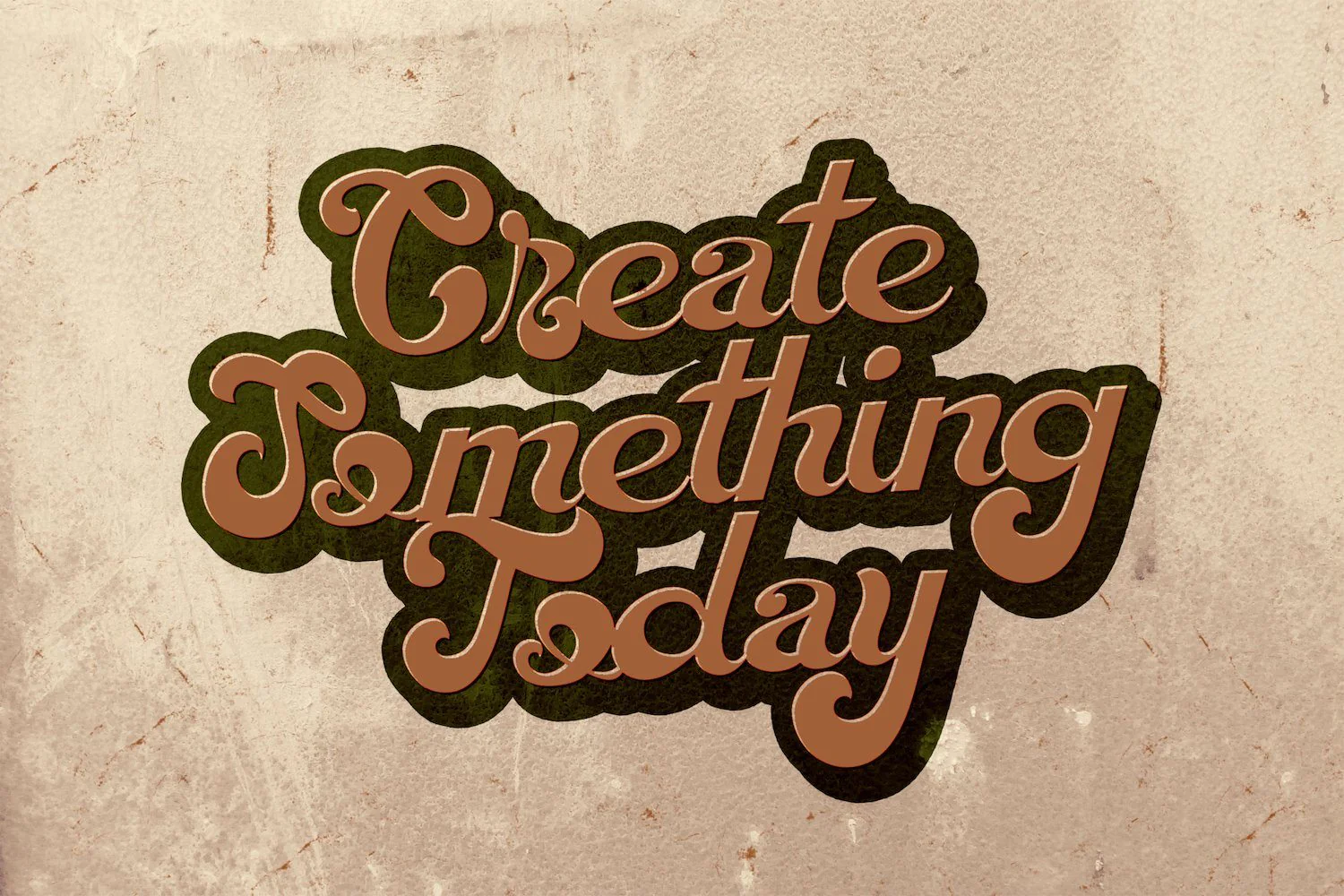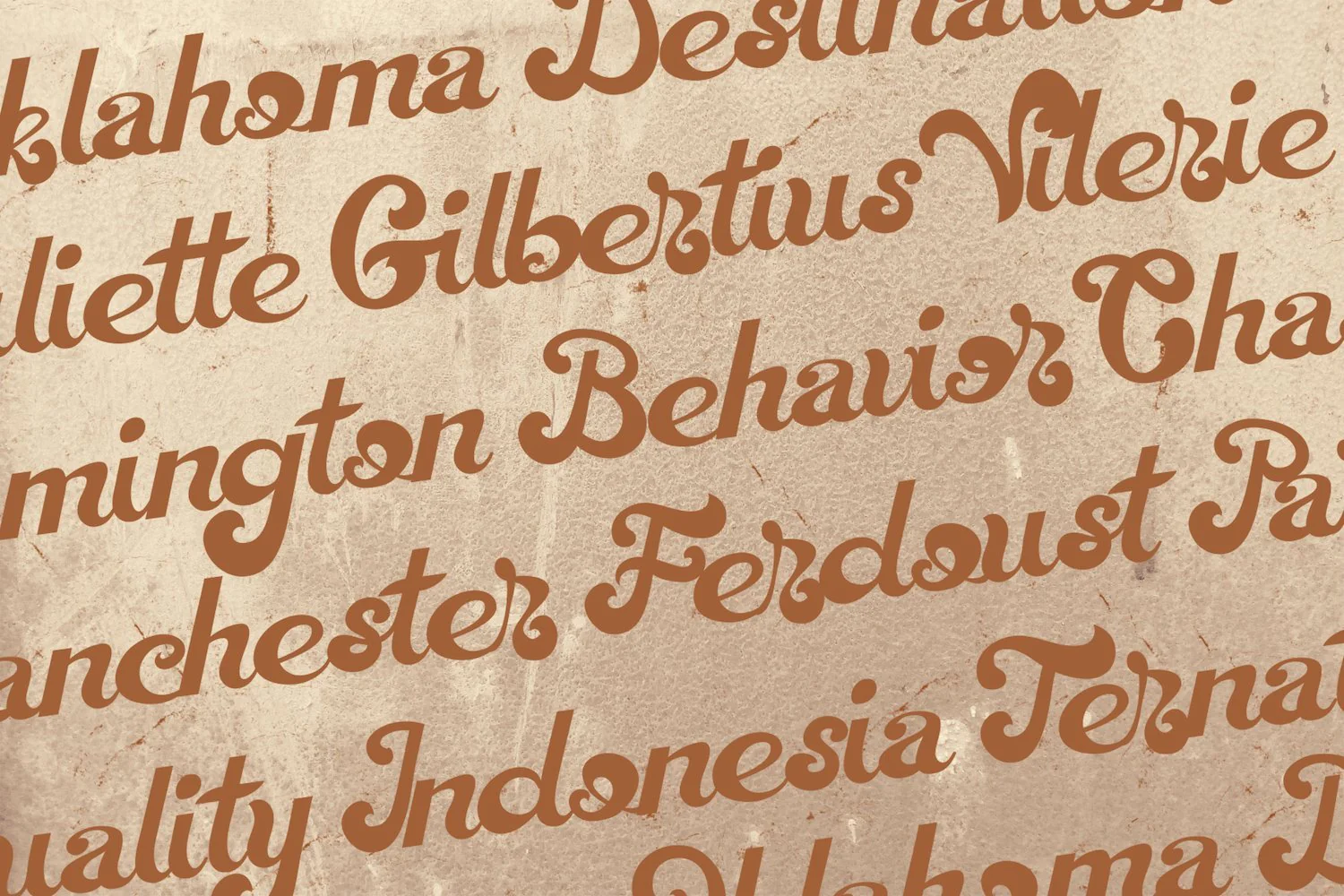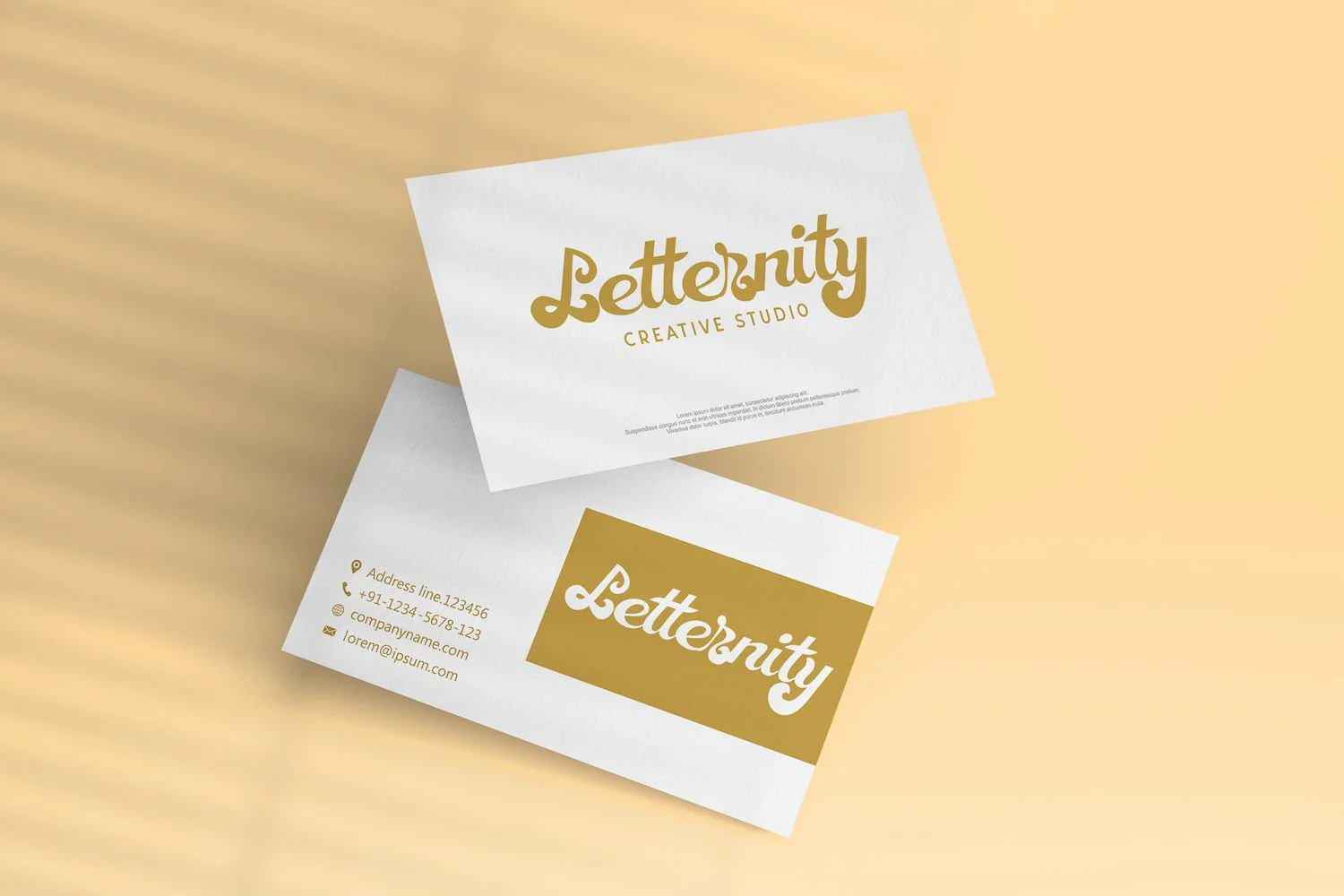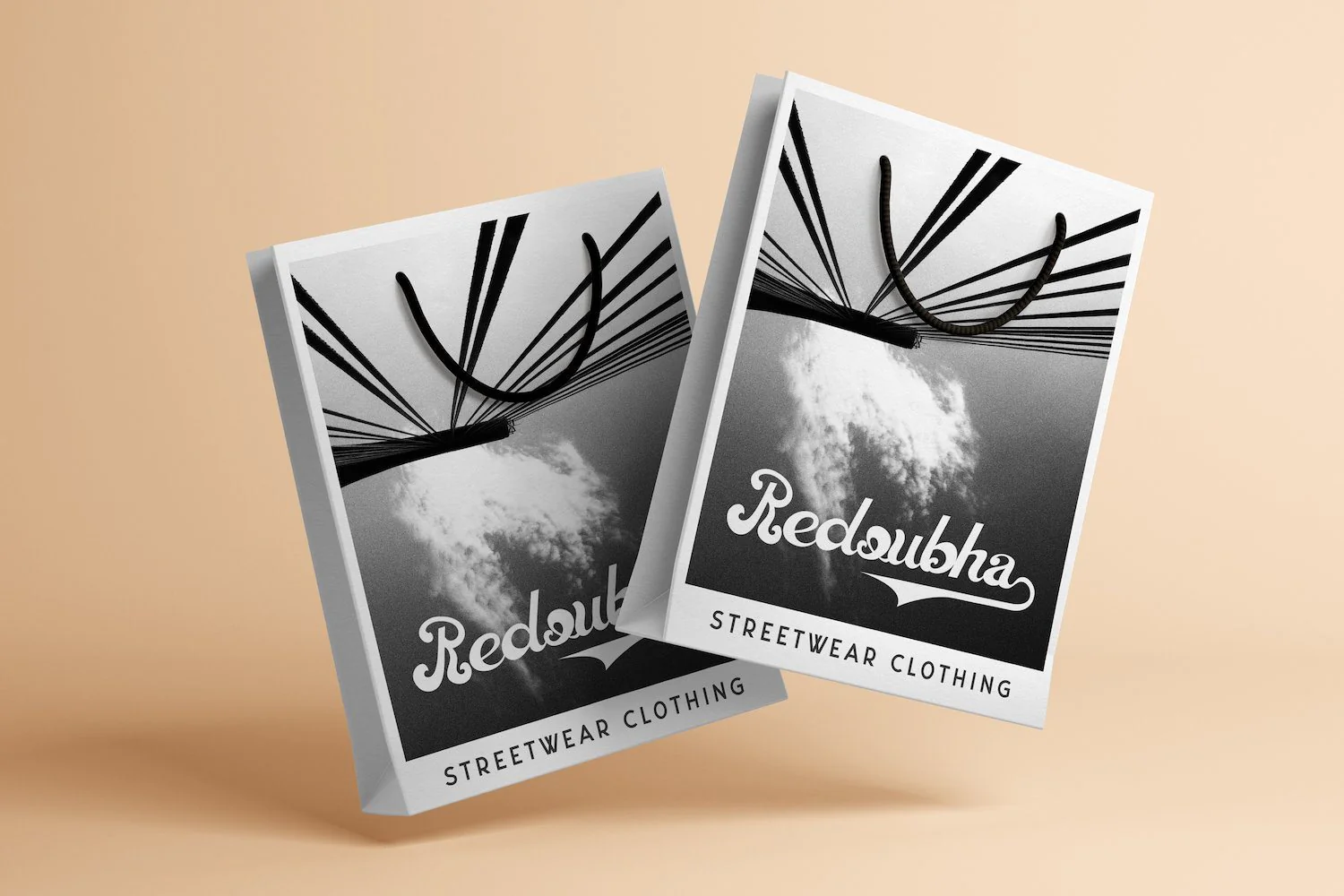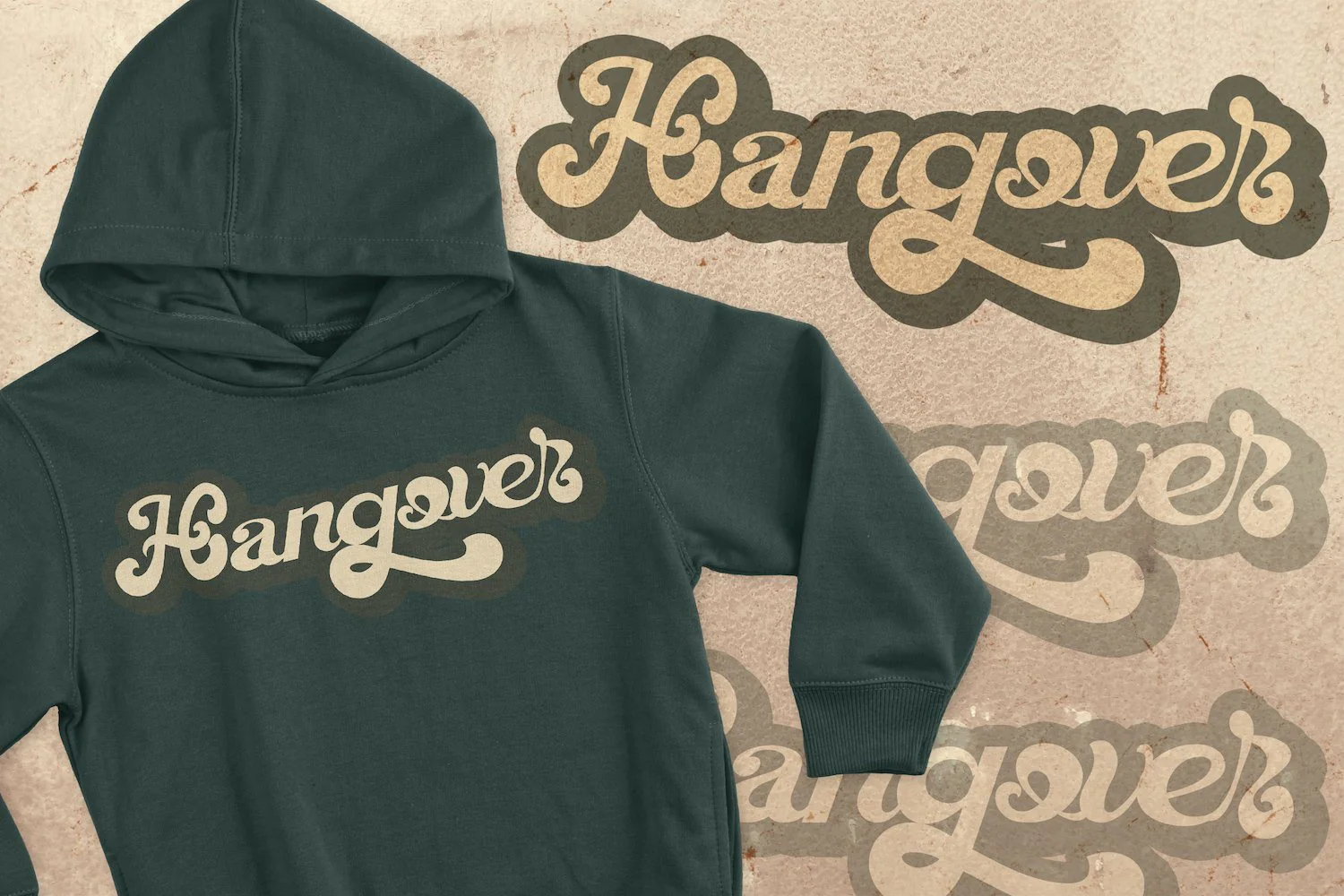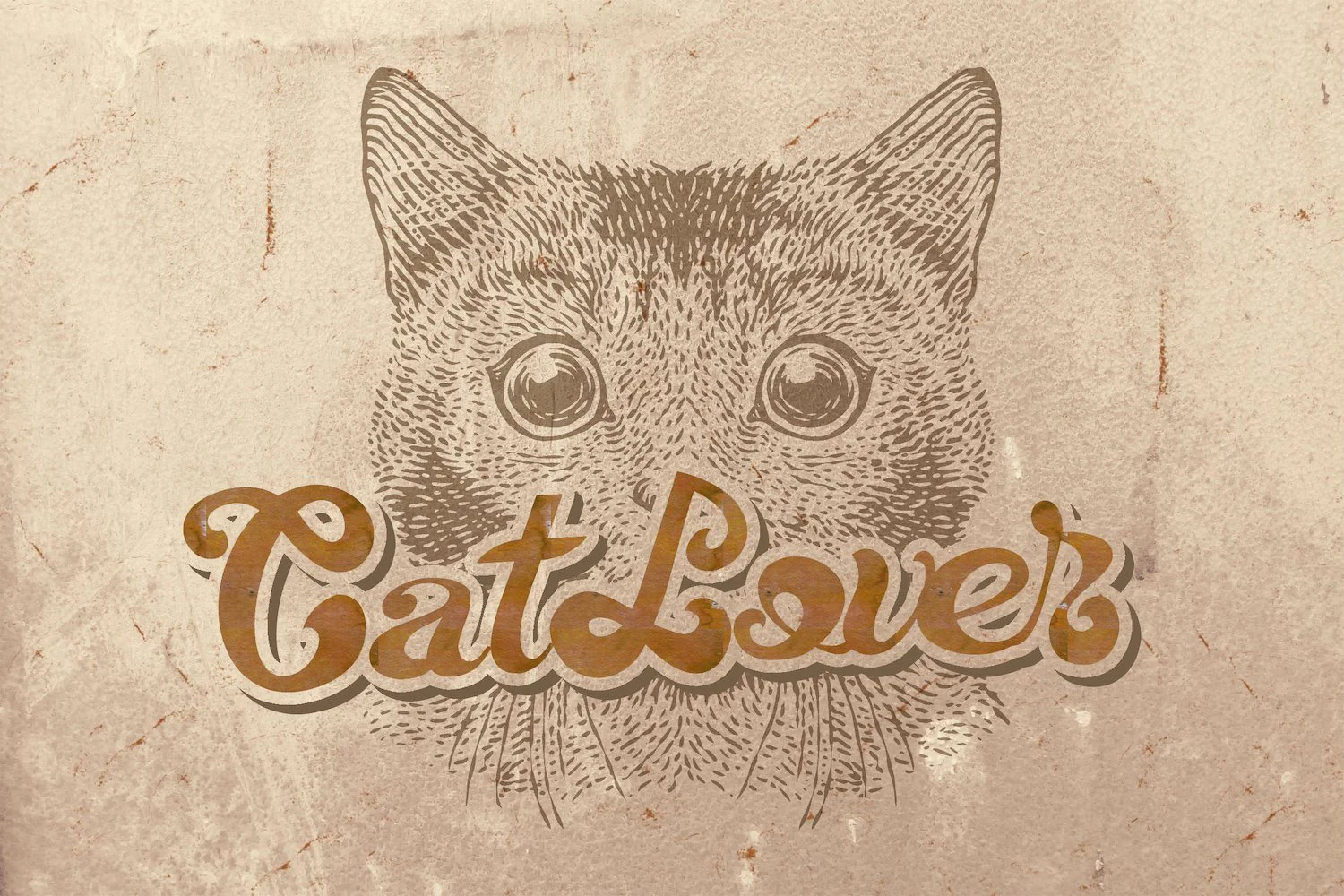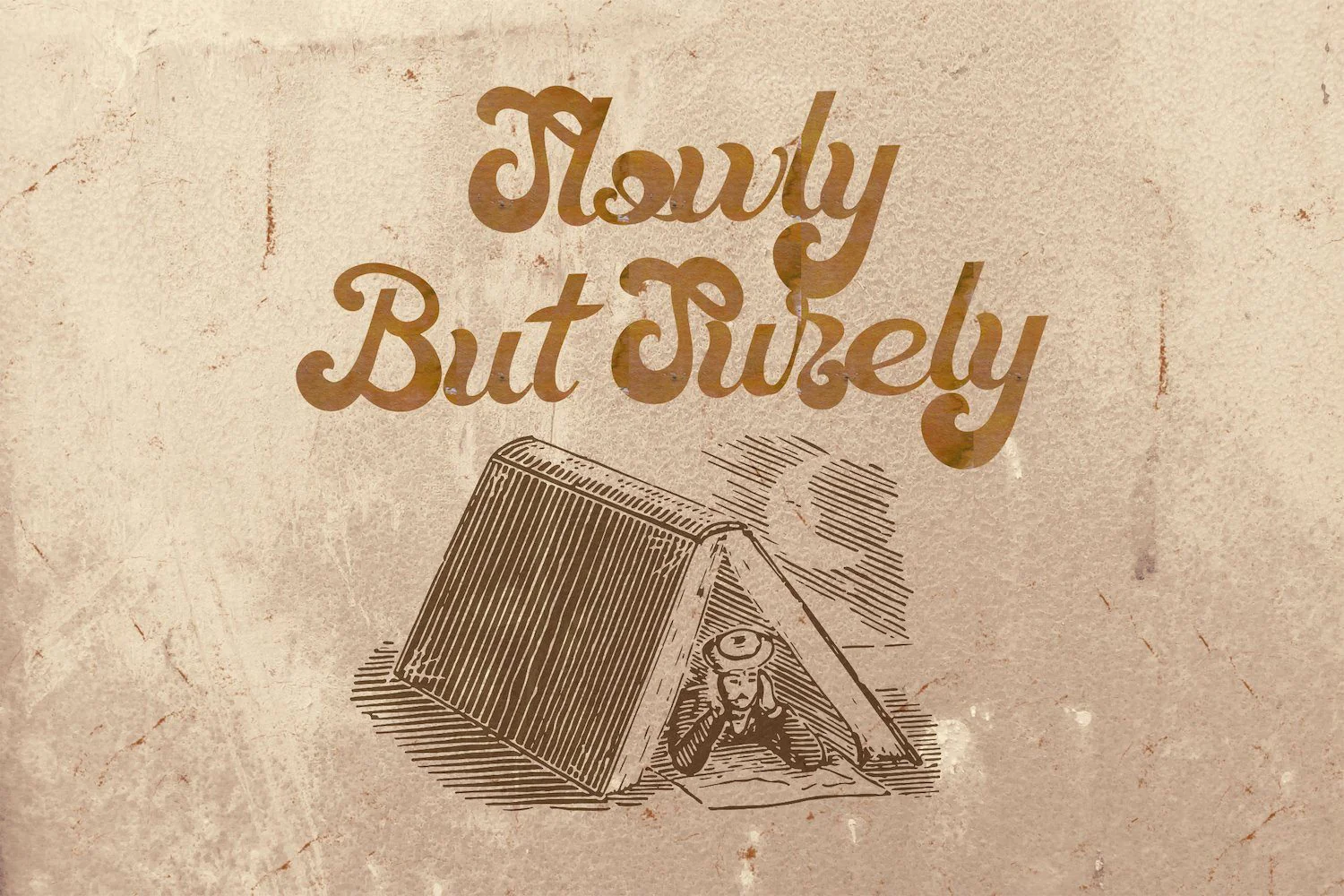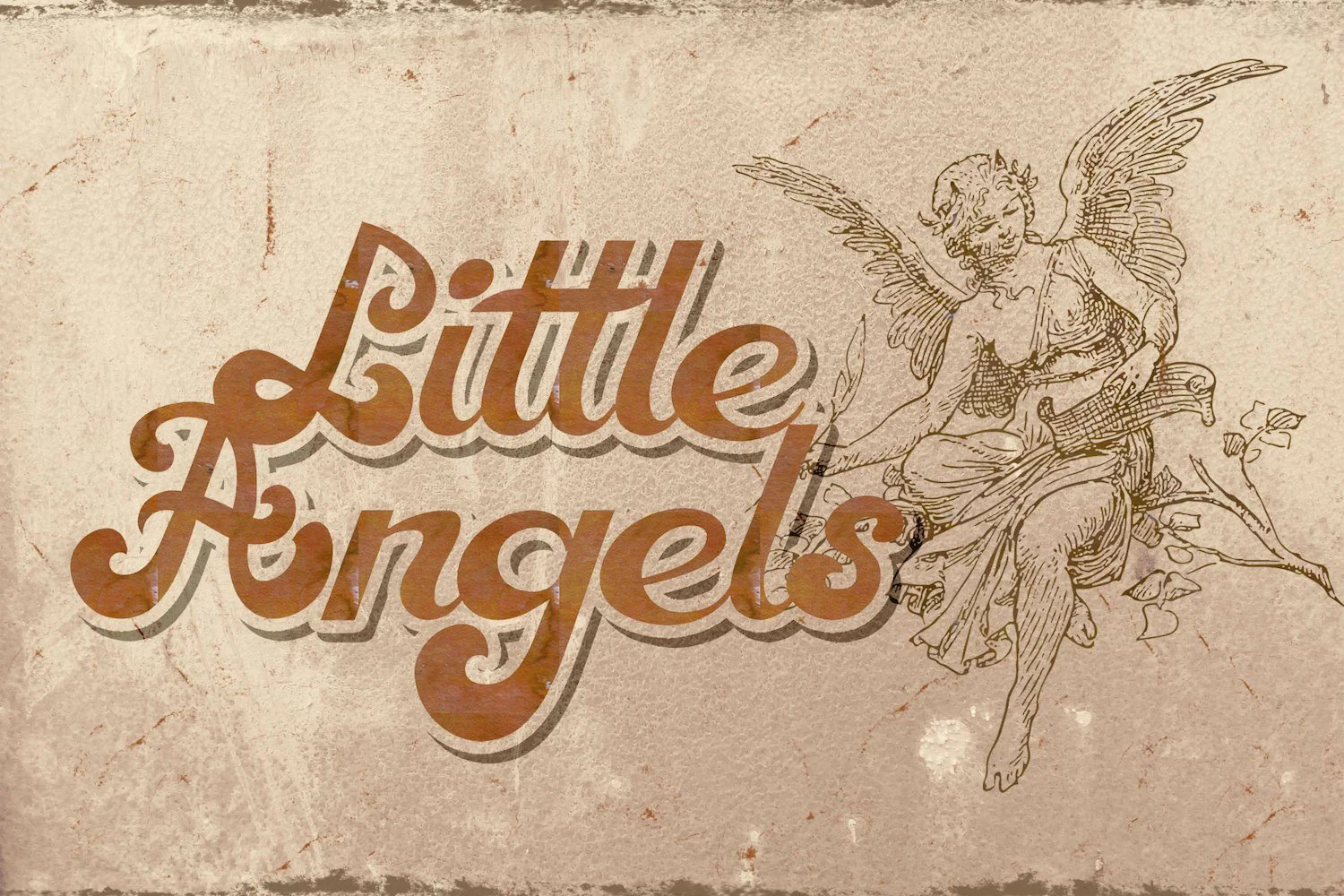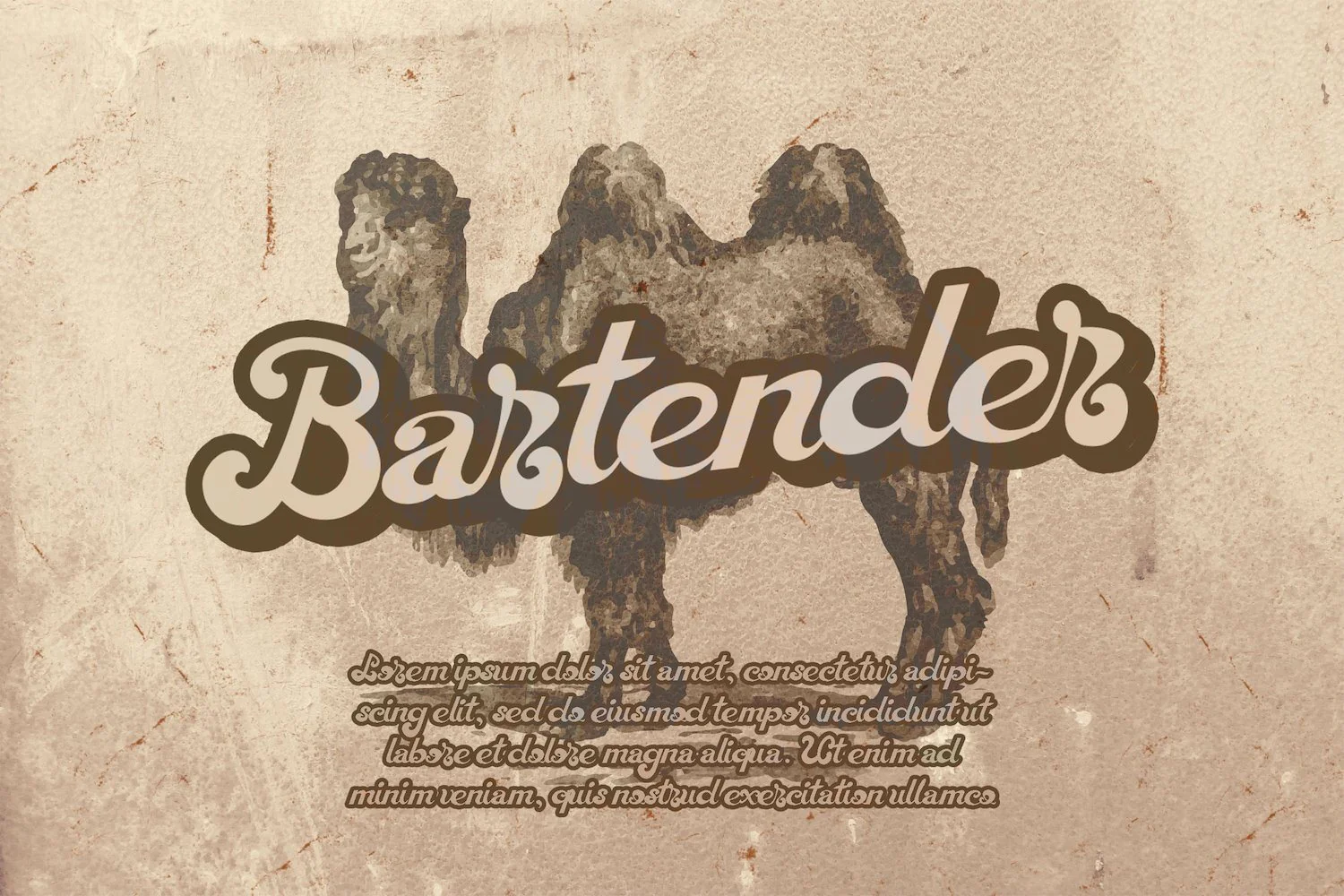
Magic Wand - Bold Script Font
Introducing Magic Wand - Bold Script Font
Magic Wand is a great script font with a retro style. Clean and a little bit quirky, this font is the perfect fit for all of your logos, branding, social media, and crafty DIY projects.
Introducing Magic Wand - Bold Script Font
Magic Wand is a great script font with a retro style. Clean and a little bit quirky, this font is the perfect fit for all of your logos, branding, social media, and crafty DIY projects.